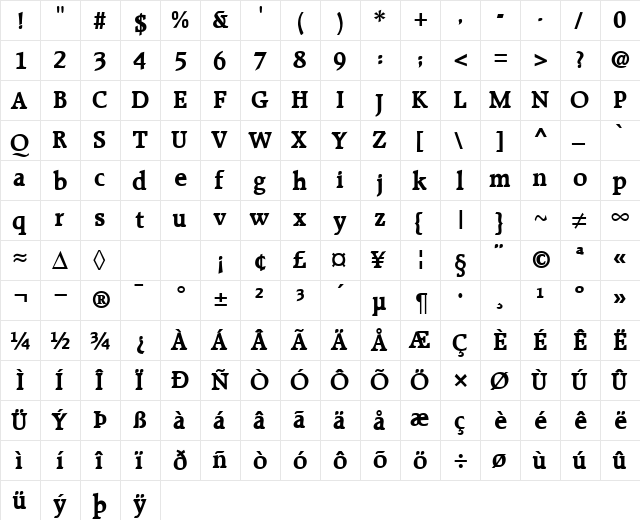
RaleighTwo Bold
Design Context for RaleighTwo Typeface
RaleighTwo takes a measured approach to typography — its balanced proportions and neutral character make it a reliable workhorse for both digital and print work. Its bold stroke weight gives it real presence on the page.